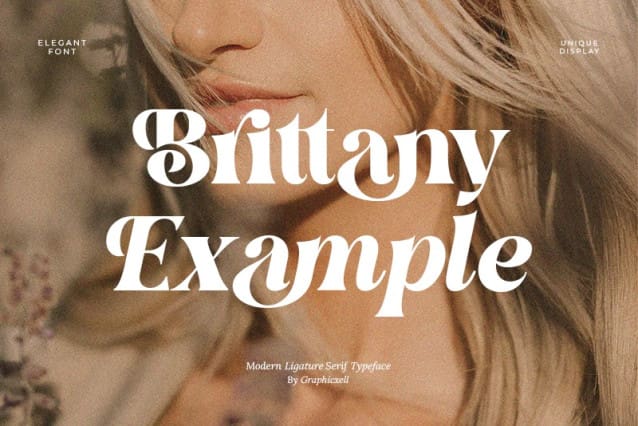
Brittany Example Font
Brittany Example Font, inspired by the famous minimalist logo perfect for the purposes of designing templates, brochures, videos, advertising branding, logos, invitation, layout design, elegant crafting, beauty design and more.